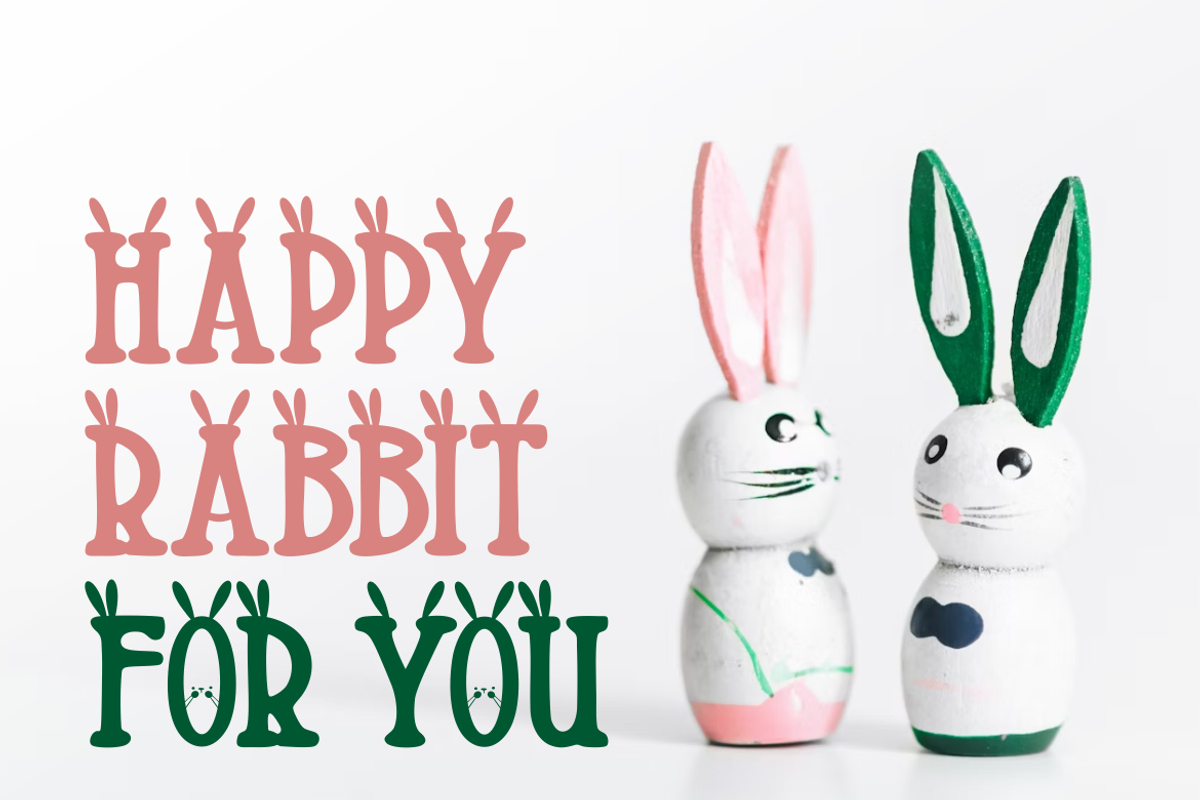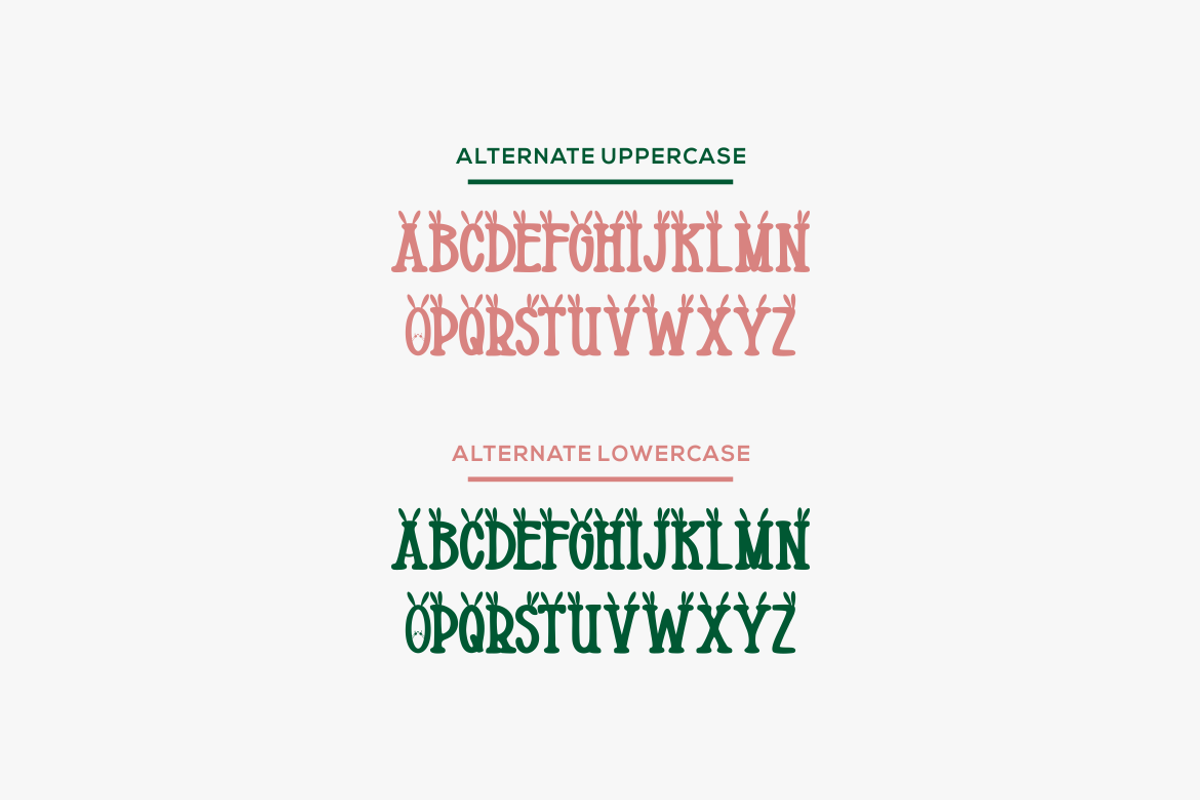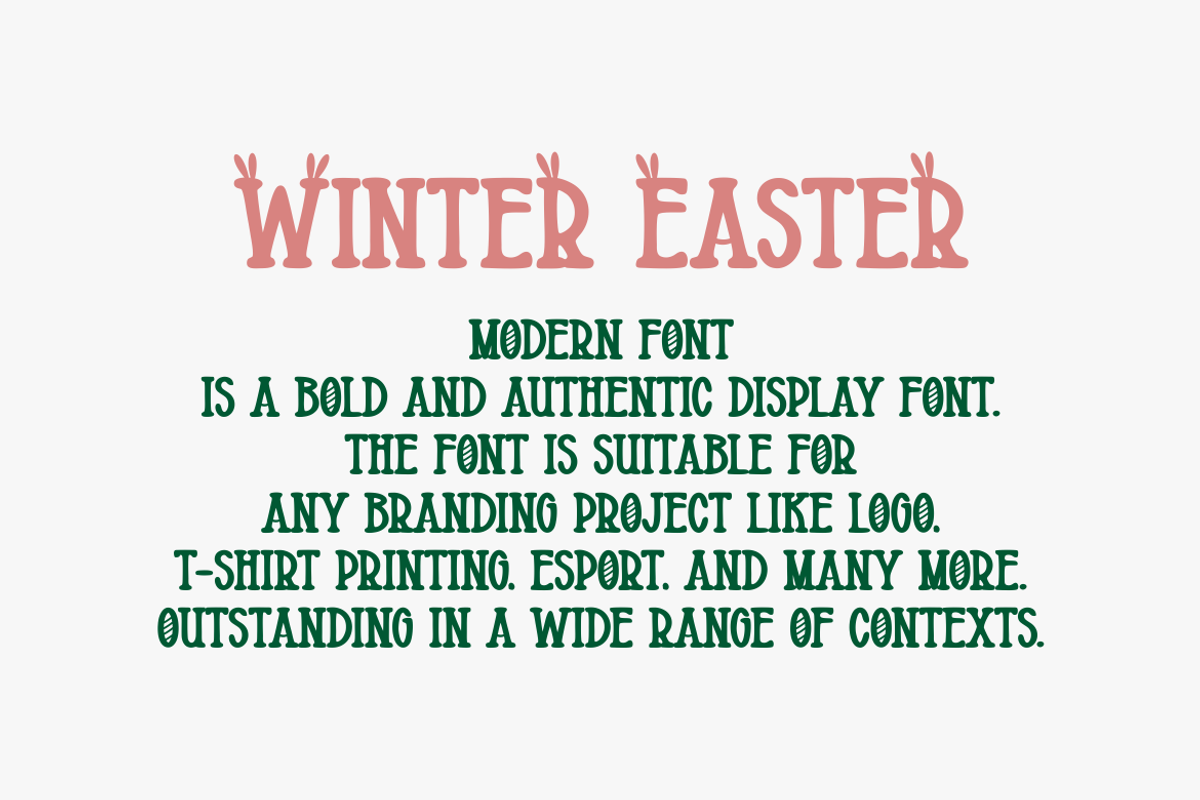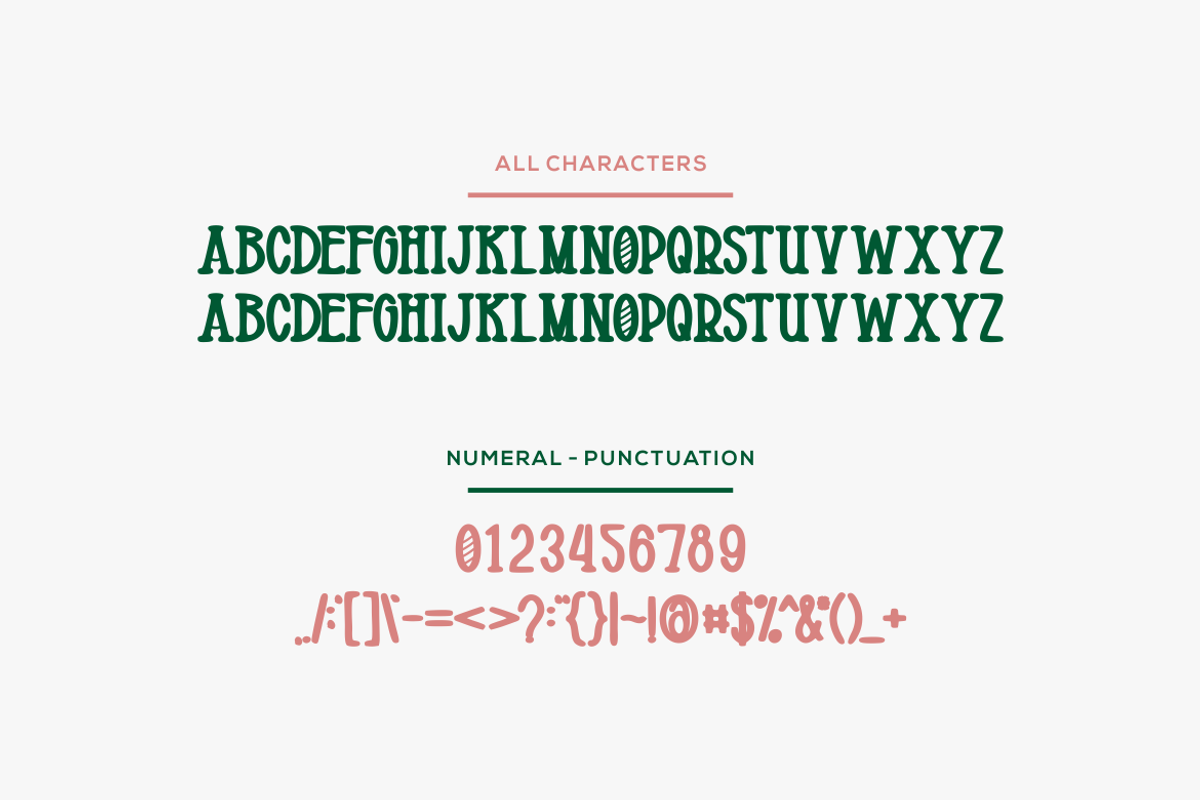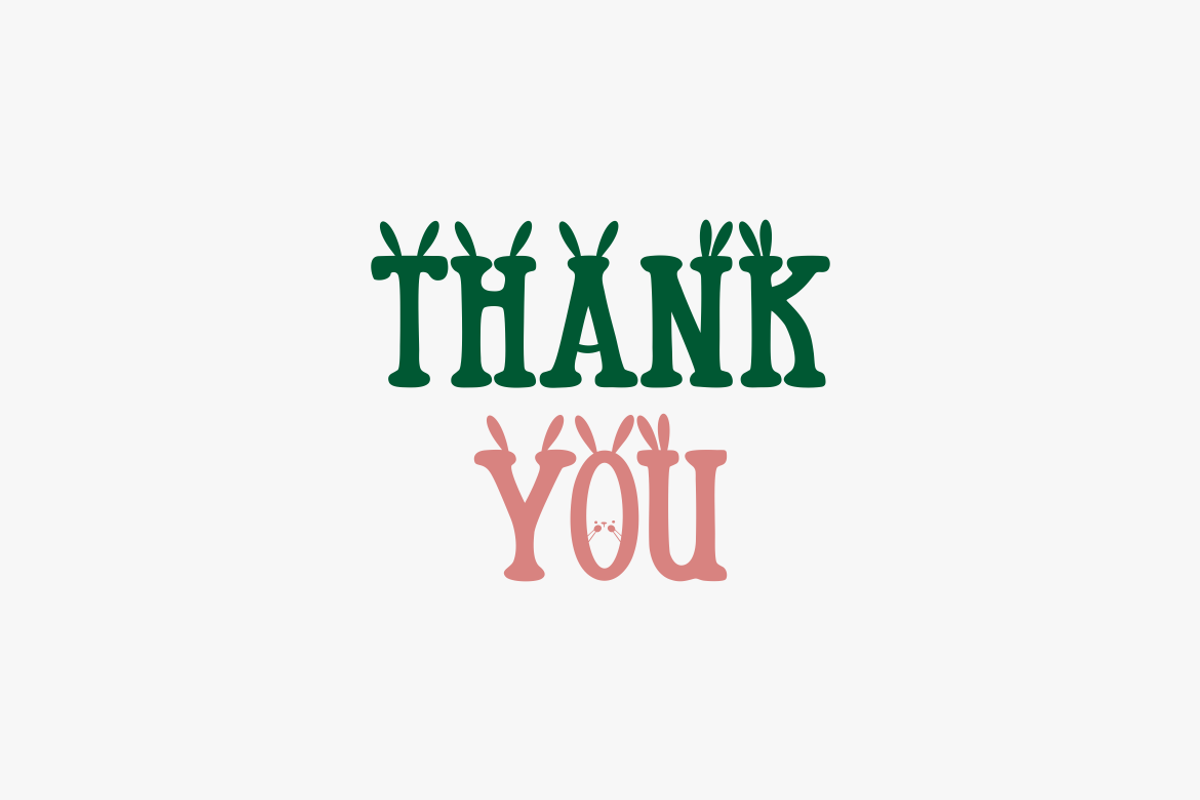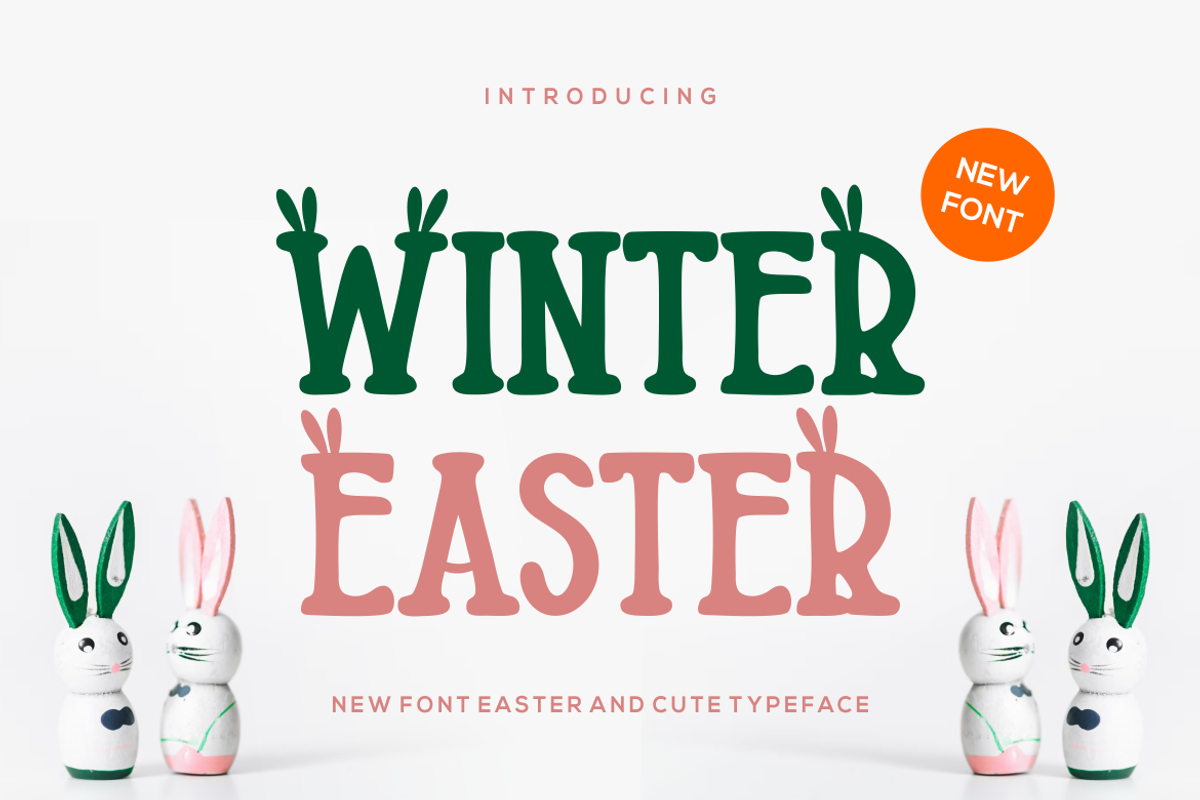
Winter Easter Font
Introducing our new product Winter Easter Font - Modern Font
Winter Easter Font- Modern Font is a bold and authentic display font. The font is suitable for any branding project like logo, t-shirt printing, esport, and many more. outstanding in a wide range of contexts.
- Winter Easter Uppercase
- Winter Easter Alternate Uppercase and Lowercase